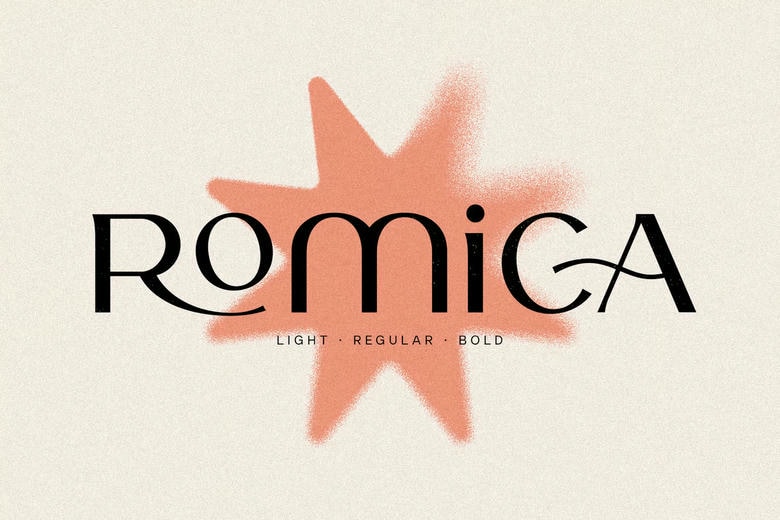
Romica Font
Romica is modern aesthetic font and every single letters have been uniquely crafted. Available in three weights so will look great in whatever kind of project you are working on. This font including beautiful alternate glyph. You can access the alternate glyph via Font Book (Mac user) or Windows Character Map (Windows user) I’ve been put the link tutorial inside the zip file.
Romica Sans Serif Font